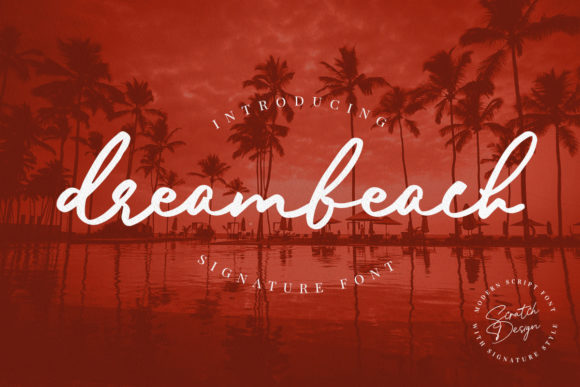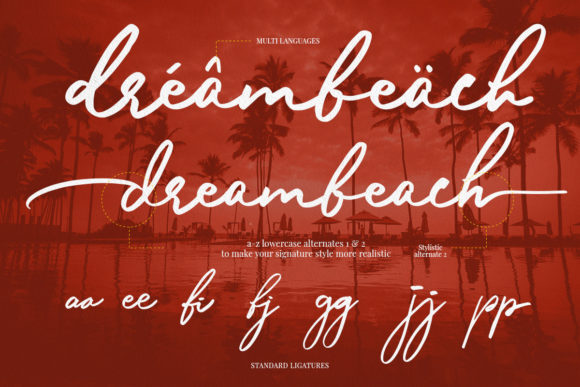
About Dreambeach Font
Dreambeach is a modern script font with a splendid signature style, perfect for projects that need a natural and authentic signature taste. This font will work for invitation design, wedding design, poster, packaging, book cover title, quote, social media post, etc.